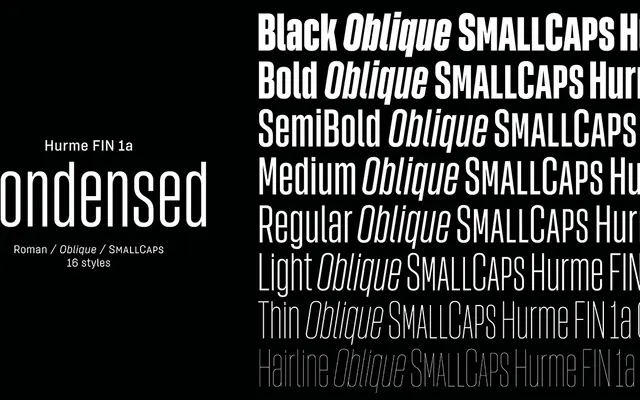
Hurme FIN 1a Condensed
A condensed cut from Hurme Design's monolinear grotesque FIN 1a, offering eight weights with matching obliques as part of a nine-width, 144-style system.
Part of the larger Hurme FIN family spanning nine widths and eight weights, the Condensed variant shares the family's monolinear construction, horizontal stroke terminals and proportionally increased x-height relative to narrower cuts. Sixteen styles cover Hairline to Black with optically adjusted obliques throughout. Purchasing this variant also includes the corresponding weights of FIN 1b, an alternate version with angular, monospace-influenced characters and slab serifs accessible via OpenType features.
A simplified monolinear sans-serif with horizontal stroke terminals and optically adjusted obliques, placing it squarely in the grotesque tradition despite its extensive width-variant system.